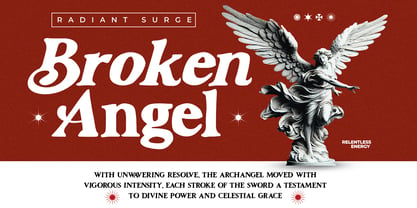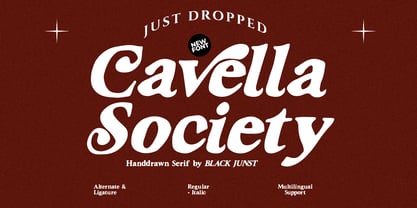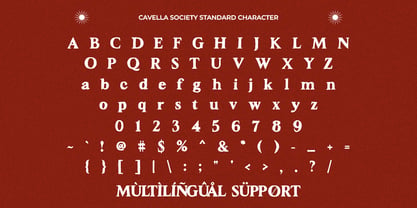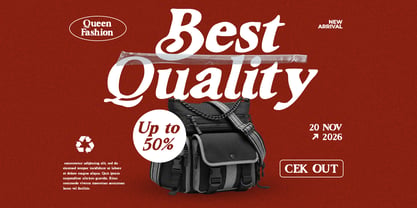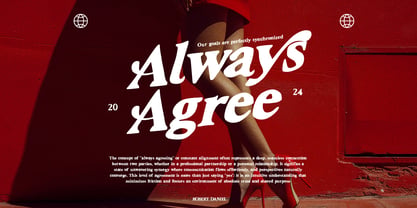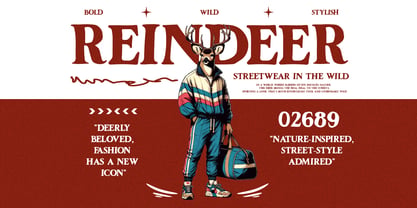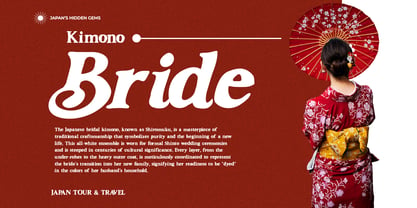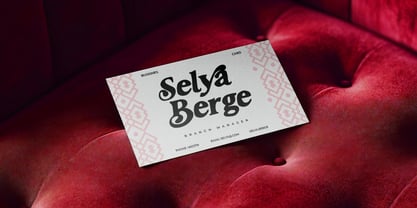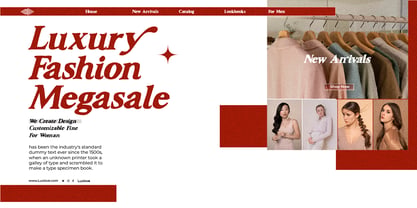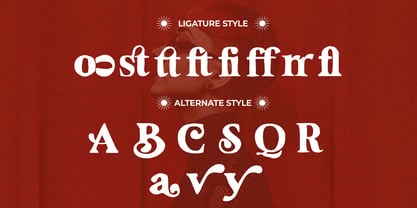
Cavella Society
by Black Junst
The Cavella Society Font Family was designed by Maulana Semar and published by Black Junst. Cavella Society contains 2 styles and family package options. More about this family
Cavella Society is a warm and stylish hand-drawn serif font that seamlessly blends vintage charm with modern elegance. Designed with soft curves, a bold presence, and a touch of retro personality, this font is perfect for creating eye-catching branding and timeless designs. Inspired by classic typography with a contemporary twist, Cavella Society delivers a smooth, friendly, and luxurious feel, making it ideal for designers who want to stand out with character and style. Whether you're working on logos, packaging, or social media visuals, this font brings a strong identity that feels both nostalgic and fresh. Perfect For: - Logo & Branding - Coffee & Cafe Packaging - Fashion & Streetwear - Skincare & Beauty - Posters & Social Media - Editorial & Magazine Features: - Uppercase & Lowercase - Stylish Alternates & Ligatures - Regular & Italic Style - Multilingual Support - Handcrafted Letterforms
Designers: Maulana Semar
Foundry: Black Junst